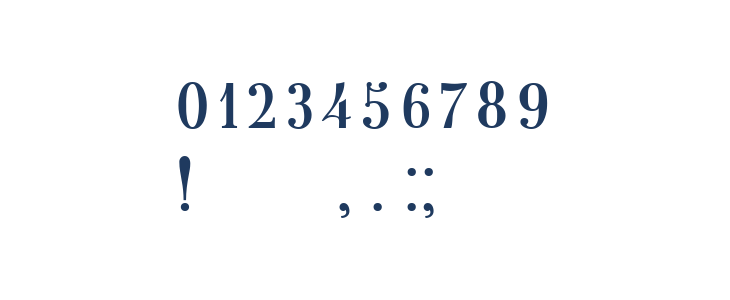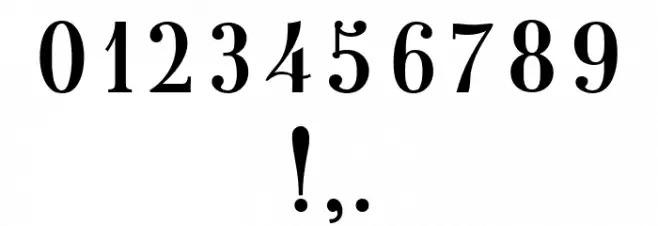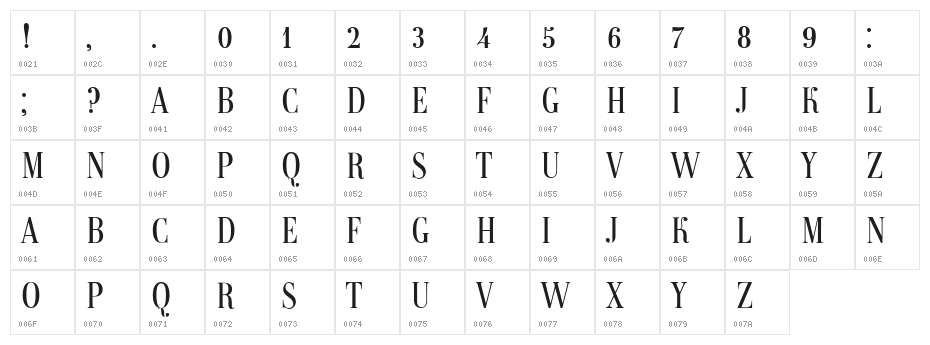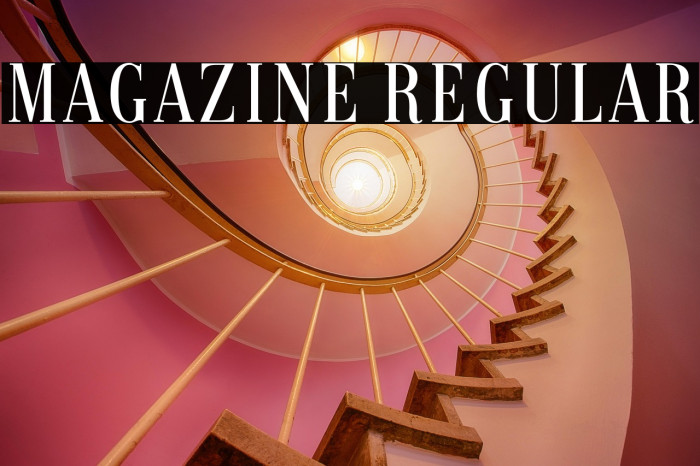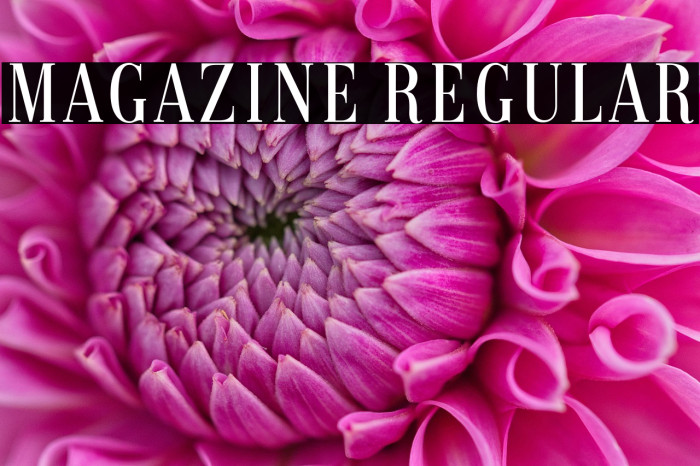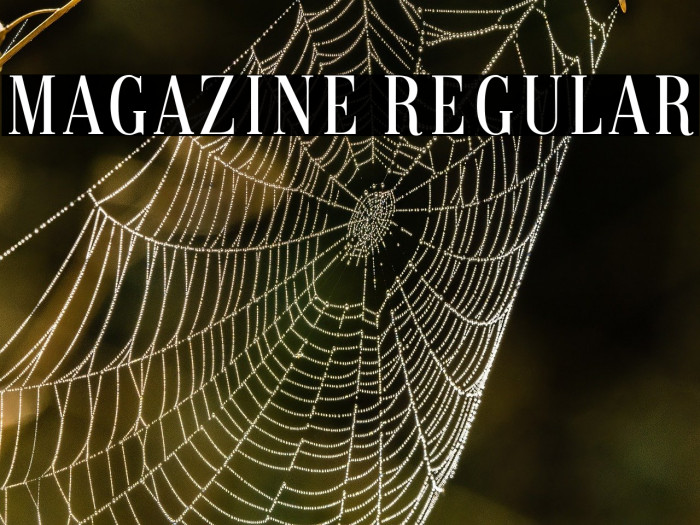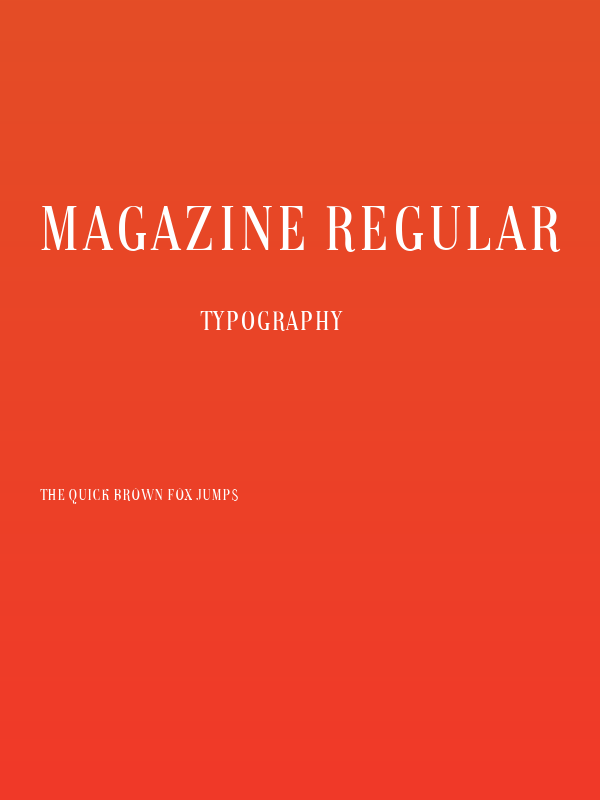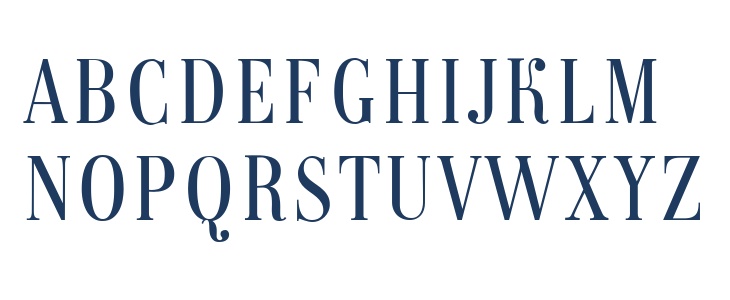
Magazine Regular Font
Magazine Regular Description
This font features a classic serif style with a modern twist, characterized by its elegant and elongated letterforms. The serifs are pronounced and slightly curved, adding a touch of sophistication and flair. The vertical strokes are consistent, providing a balanced and harmonious appearance. The numerals are distinct and maintain the same elegant style, ensuring readability. This font is versatile, suitable for both digital and print media, and can effectively convey a sense of tradition and modernity.
| Proposed Projects | Ideal for magazine headlines, book covers, branding materials, and elegant invitations. |